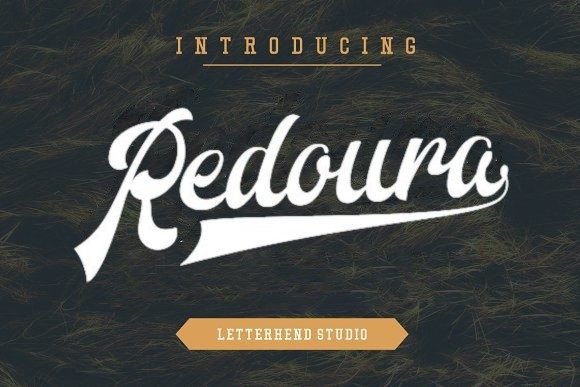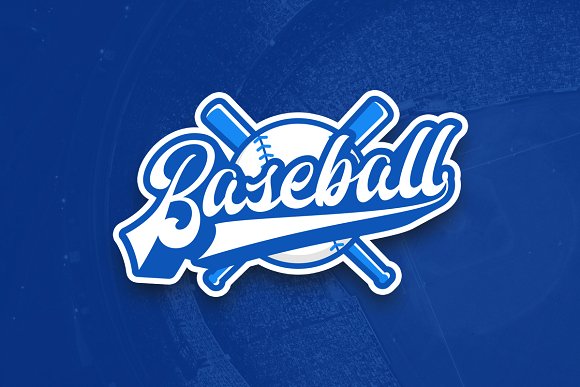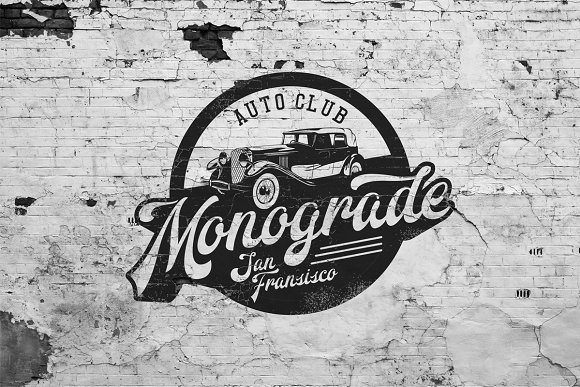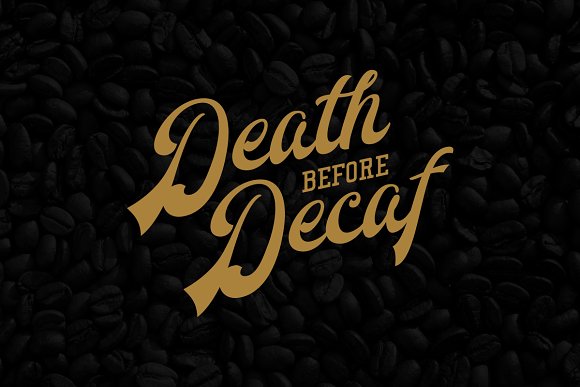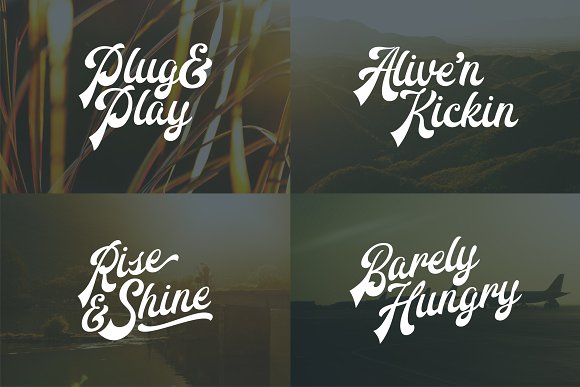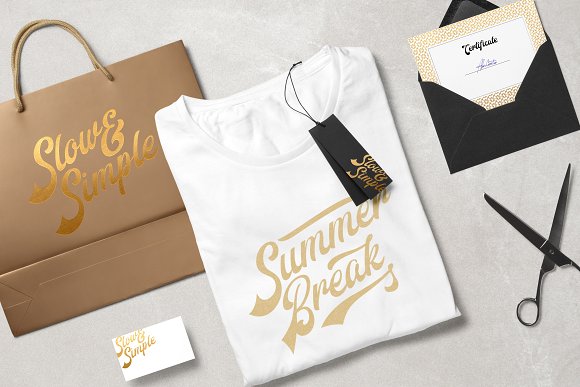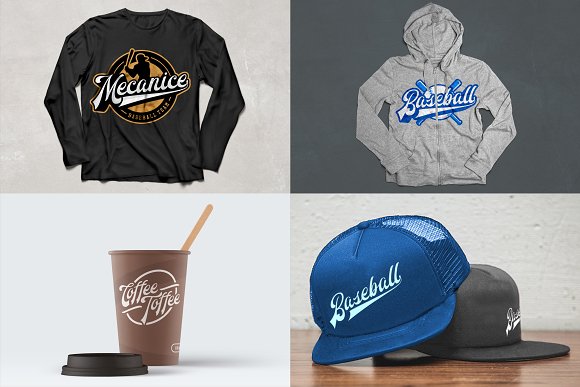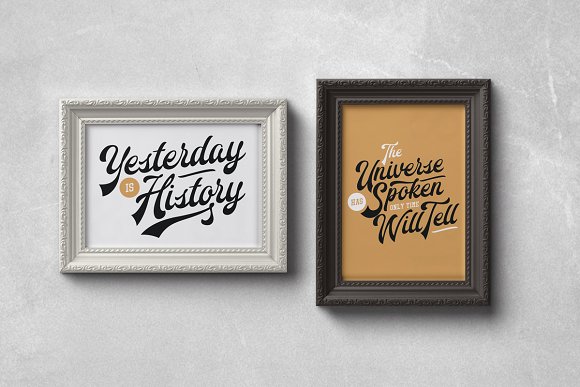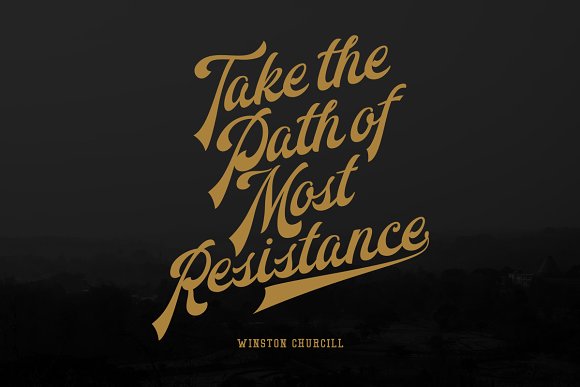
Redoura Font
About Redoura Font
Redoura is a stylish handwritten font. No matter the topic, it will be an incredible asset to your fonts’ library, as it has the potential to elevate any creation!